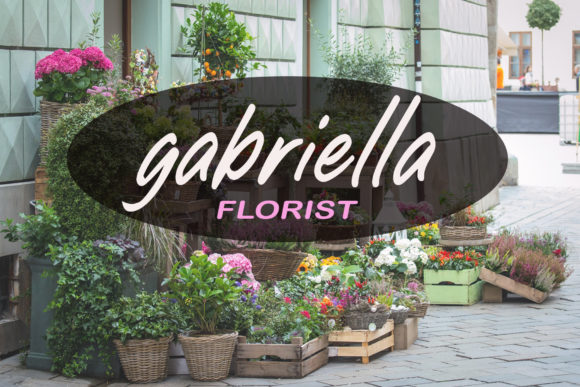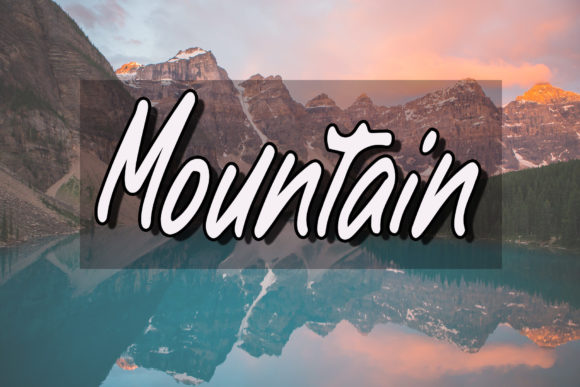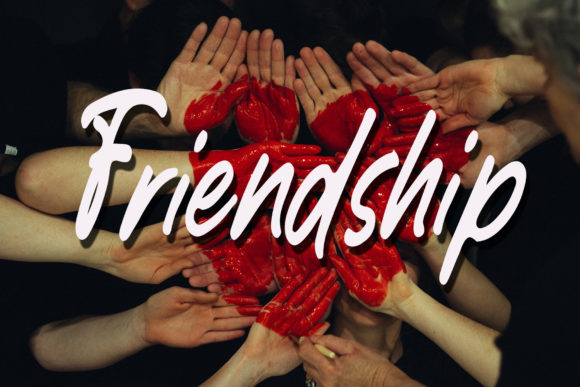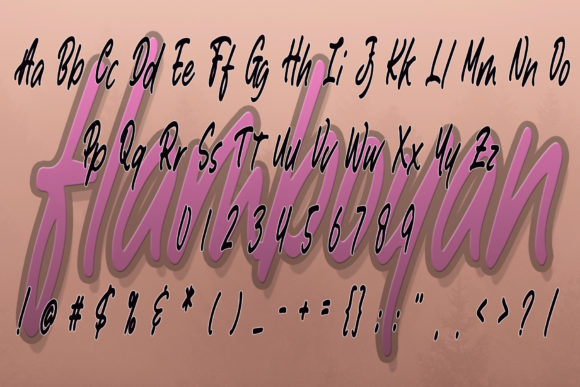
Introducing Flamboyan Font: Elevate Your Designs with Elegance and Class
Are you tired of using the same old fonts in your designs? Do you want to add a touch of elegance and sophistication to your projects? Look no further than Flamboyan Font, a stunning cursive script font that is sure to take your designs to the next level. In this article, we’ll explore the features and benefits of Flamboyan Font, and why it’s the perfect choice for designers and crafters looking for a beautiful and refreshing look.
What is Flamboyan Font?
Flamboyan Font is a lovely and cursive script font that exudes elegance and class. This font was particularly crafted for those who need a beautiful and refreshing look to their designs. With its flowing lines and intricate details, Flamboyan Font is perfect for adding a touch of sophistication to any project. Whether you’re designing a logo, creating a brochure, or crafting a social media post, Flamboyan Font is sure to make your design stand out.
Features of Flamboyan Font
So, what makes Flamboyan Font so special? Here are just a few of its key features:
- Elegant and Cursive Design: Flamboyan Font features a beautiful cursive design that is both elegant and sophisticated.
- Unique and Refreshing Look: With its flowing lines and intricate details, Flamboyan Font adds a unique and refreshing look to any design.
- High-Quality Typography: Flamboyan Font is designed with high-quality typography in mind, ensuring that your designs look professional and polished.
- Easy to Read: Despite its elegant design, Flamboyan Font is easy to read, making it perfect for body text and headings.
Benefits of Using Flamboyan Font
So, why should you choose Flamboyan Font for your designs? Here are just a few benefits:
- Adds Elegance and Sophistication: Flamboyan Font adds a touch of elegance and sophistication to any design, making it perfect for high-end brands and luxury products.
- Stand Out from the Crowd: With its unique and refreshing look, Flamboyan Font helps your designs stand out from the crowd and grab attention.
- Perfect for Creative Projects: Flamboyan Font is perfect for creative projects, such as designing logos, brochures, and social media posts.
- Easy to Use: Flamboyan Font is easy to use and can be easily integrated into your design workflow.
Who Can Use Flamboyan Font?
Flamboyan Font is perfect for a wide range of designers and crafters, including:
- Graphic Designers: Graphic designers can use Flamboyan Font to add a touch of elegance and sophistication to their designs.
- Logotype Designers: Logotype designers can use Flamboyan Font to create stunning logos that stand out from the crowd.
- Crafters: Crafters can use Flamboyan Font to add a touch of elegance and sophistication to their craft projects, such as handmade cards and invitations.
- Digital Artists: Digital artists can use Flamboyan Font to add a touch of elegance and sophistication to their digital art.
| Font Name | Flamboyan Font |
| Author | Projectype |
In conclusion, Flamboyan Font is a stunning cursive script font that is sure to elevate your designs with elegance and class. With its flowing lines, intricate details, and high-quality typography, Flamboyan Font is perfect for designers and crafters looking for a beautiful and refreshing look. Whether you’re designing a logo, creating a brochure, or crafting a social media post, Flamboyan Font is the perfect choice. So why wait? Download Flamboyan Font today and take your designs to the next level!